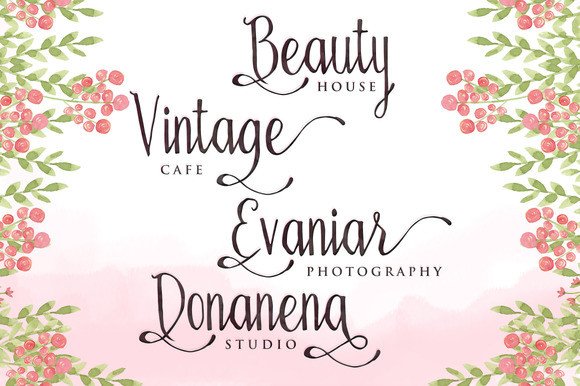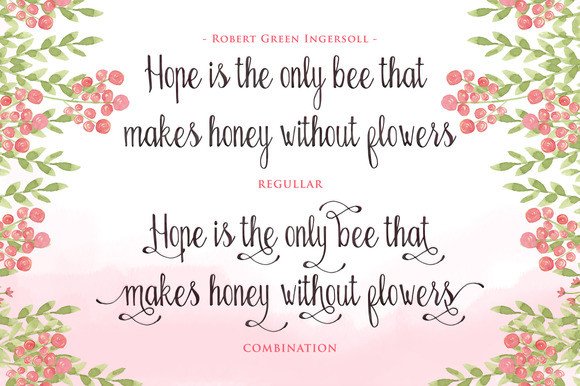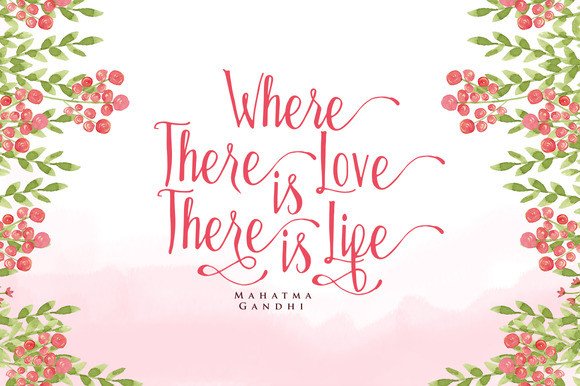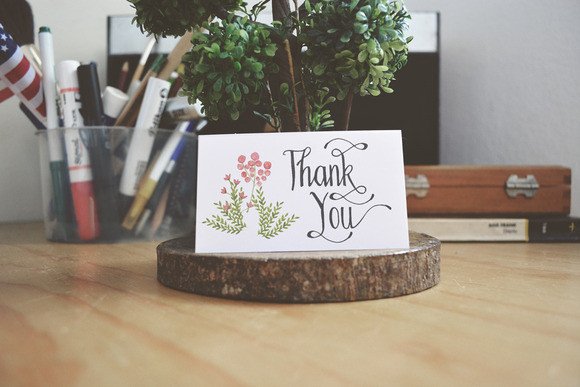
Bellanie Font: Elevate Your Designs with Elegance and Rustic Charm
Are you searching for a font that exudes romance, elegance, and a touch of rustic charm? Look no further than the Bellanie Font. This stunning script font is perfect for headlines, logotype, and any project that requires a sophisticated yet vintage feel. In this article, we’ll dive into the world of Bellanie Font, exploring its features, uses, and benefits for designers and crafters.
The Beauty of Bellanie Font
Bellanie Font is a romantic and elegant script font that boasts a unique, hand-crafted look. Its intricate lettering and flowing curves evoke a sense of nostalgia and whimsy, making it perfect for projects that require a touch of rustic charm. Whether you’re designing a wedding invitation, a logo, or a packaging label, Bellanie Font is sure to elevate your design and leave a lasting impression.
Key Features of Bellanie Font
- Romantic and Elegant: Bellanie Font features a beautiful, cursive script that exudes romance and sophistication.
- Rustic Charm: The font’s hand-crafted look and intricate lettering give it a charming, vintage feel that’s perfect for rustic-themed projects.
- Versatile: Bellanie Font is suitable for a wide range of projects, from headlines and logotype to packaging labels and wedding invitations.
- Easy to Read: Despite its ornate design, Bellanie Font is surprisingly easy to read, making it perfect for body text and captions.
Uses for Bellanie Font
Bellanie Font is an incredibly versatile font that can be used in a variety of design projects. Here are some ideas to get you started:
- Wedding Invitations: Add a touch of romance and elegance to your wedding invitations with Bellanie Font.
- Logotype: Use Bellanie Font to create a unique and memorable logo for your business or brand.
- Packaging Labels: Give your products a rustic, homespun feel with Bellanie Font.
- Headlines: Use Bellanie Font to create eye-catching headlines for your blog posts, articles, or social media graphics.
Bellanie Font offers a range of benefits for designers and crafters, including:
- Unique Design: Bellanie Font’s unique design sets it apart from other fonts, ensuring your projects stand out from the crowd.
- Time-Saving: With Bellanie Font, you can create professional-looking designs in no time, saving you hours of design time.
- Customization: Bellanie Font is highly customizable, allowing you to adjust the font size, color, and style to suit your project’s needs.
Tips for Using Bellanie Font
To get the most out of Bellanie Font, here are some tips to keep in mind:
- Use it Sparingly: Bellanie Font is a statement font, so use it sparingly to avoid overwhelming your design.
- Pair it with Other Fonts: Experiment with pairing Bellanie Font with other fonts to create a unique and visually appealing design.
- Adjust the Font Size: Adjust the font size to suit your project’s needs, using larger font sizes for headlines and smaller font sizes for body text.
| Font Name | Bellanie Font |
| Author | Ian Mikraz |
In conclusion, Bellanie Font is a stunning script font that offers a unique blend of romance, elegance, and rustic charm. With its intricate lettering, flowing curves, and highly customizable design, Bellanie Font is perfect for designers and crafters looking to elevate their projects and leave a lasting impression. Whether you’re designing a wedding invitation, a logo, or a packaging label, Bellanie Font is sure to become your go-to font solution.